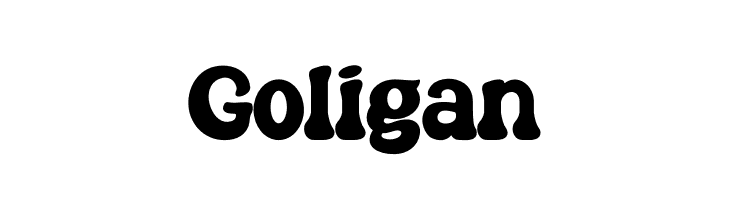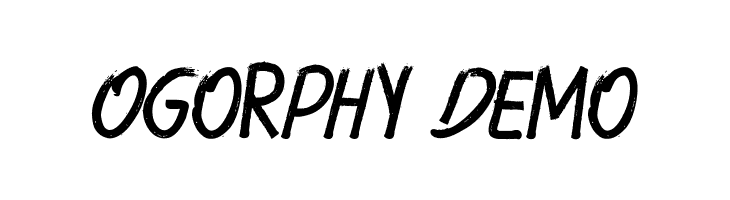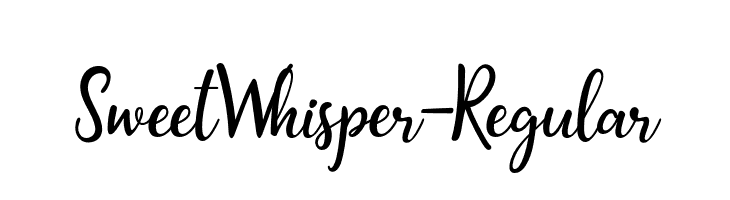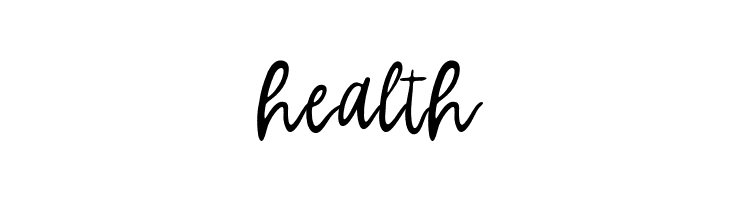
A bold, playful font with rounded edges and a vintage feel.
A bold, geometric font with a modern, industrial aesthetic.
A dynamic and expressive handwritten font with fluid, cursive strokes.
Bold, graffiti-inspired font with rounded edges.
A playful, handwritten font with a modern and lively style.
A lively and flowing script font with playful curves and elegant loops.
An ornate and decorative serif font with intricate details and flourishes.
A cursive, handwritten font with elegant, flowing letters.
A modern, hollow outlined font with geometric precision.
A graceful and flowing script font with elegant, cursive letterforms.